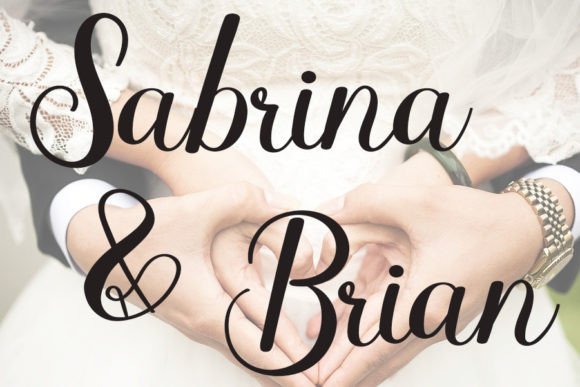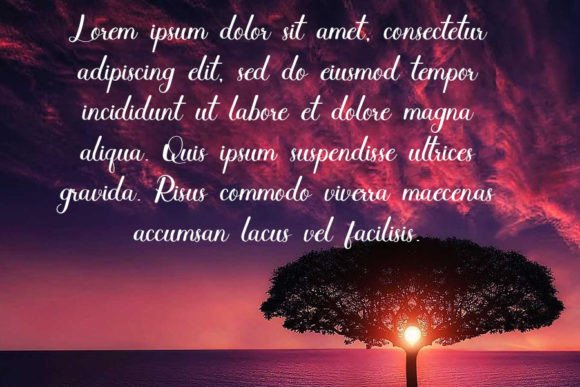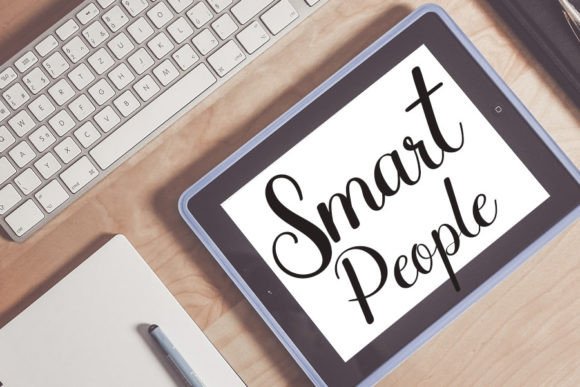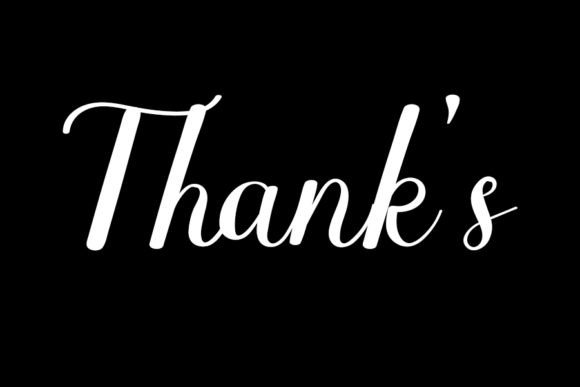
Introducing Barbie Font: The Epitome of Elegance and Charm
Are you a designer or crafter looking for a font that exudes elegance and charm? Look no further than the Barbie Font. This beautiful, handwritten font is perfect for adding a touch of sophistication to any design project. From wedding invitations to business cards, Barbie Font is sure to make your creations stand out.
What is Barbie Font?
Barbie Font is a stunning, handwritten font that is inspired by the iconic Barbie doll. The font features elegant, cursive script with a touch of playfulness and whimsy. It’s the perfect combination of charm and sophistication, making it ideal for a wide range of design projects.
Characteristics of Barbie Font
So, what makes Barbie Font so special? Here are just a few of its key characteristics:
- Elegant and Refined: Barbie Font features a beautiful, cursive script that is both elegant and refined. It’s perfect for designs that require a touch of sophistication.
- Handwritten Touch: The font has a lovely, handwritten touch that adds a personal and unique feel to any design.
- Playful and Whimsical: Despite its elegance, Barbie Font also has a playful and whimsical side, making it perfect for designs that require a touch of fun and personality.
- Versatile: Barbie Font is incredibly versatile and can be used for a wide range of design projects, from wedding invitations to business cards.
Uses for Barbie Font
So, what can you use Barbie Font for? The possibilities are endless! Here are just a few ideas to get you started:
- Wedding Invitations: Barbie Font is perfect for wedding invitations, adding a touch of elegance and sophistication to your designs.
- Thank You Cards: Use Barbie Font to create beautiful, personalized thank you cards for special occasions.
- Quotes and Greeting Cards: The font is ideal for quotes and greeting cards, adding a touch of whimsy and personality to your designs.
- Logos and Business Cards: Barbie Font is also perfect for logos and business cards, providing a unique and memorable way to brand your business.
Why Designers and Crafters Love Barbie Font
So, why do designers and crafters love Barbie Font? Here are just a few reasons:
- Unique and Eye-Catching: Barbie Font is a unique and eye-catching font that is sure to make your designs stand out.
- Elegant and Sophisticated: The font adds a touch of elegance and sophistication to any design, making it perfect for high-end projects.
- Easy to Use: Barbie Font is incredibly easy to use, even for those with limited design experience.
- Versatile: The font is versatile and can be used for a wide range of design projects, making it a great addition to any design library.
In conclusion, Barbie Font is a beautiful, elegant, and charming font that is perfect for designers and crafters looking to add a touch of sophistication to their designs. With its unique and eye-catching style, Barbie Font is sure to make your creations stand out. Whether you’re working on a wedding invitation, business card, or greeting card, Barbie Font is the perfect choice.
Get Ready to Fall in Love with Barbie Font
If you’re looking for a font that is both elegant and charming, look no further than Barbie Font. With its stunning, handwritten script and versatile design, Barbie Font is sure to become a favorite in your design library. So why wait? Get ready to fall in love with Barbie Font and take your designs to the next level.